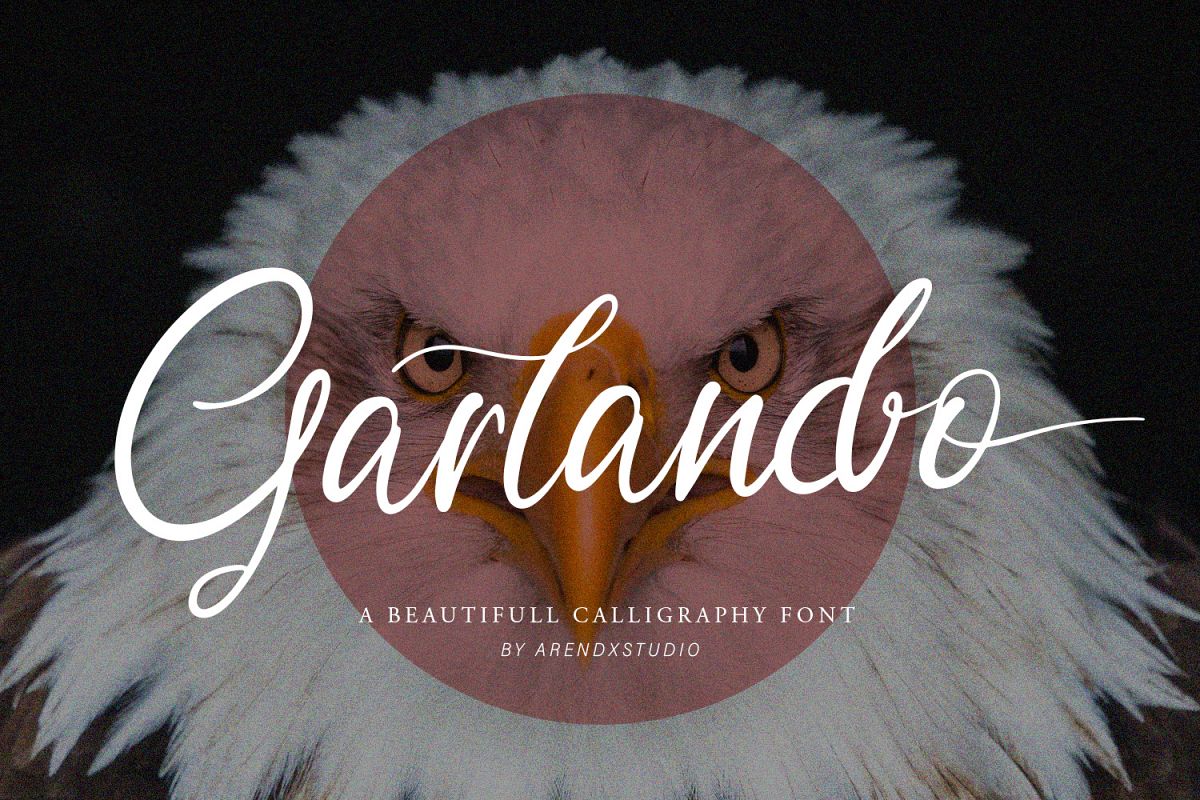
Garlando Font
Garlando Signature
Garlando
Introducing my new font Garlando Font, wrapped elegantly and has distinctive characteristics making this font beautiful and this font has 2 different styles so you get a different experience in both
Garlando font perfect for branding projects, logos, wedding designs, media posts, advertisements, product packaging, product designs, labels, photography, watermarks, invitations, stationery, and any project who need handwritten dishes.